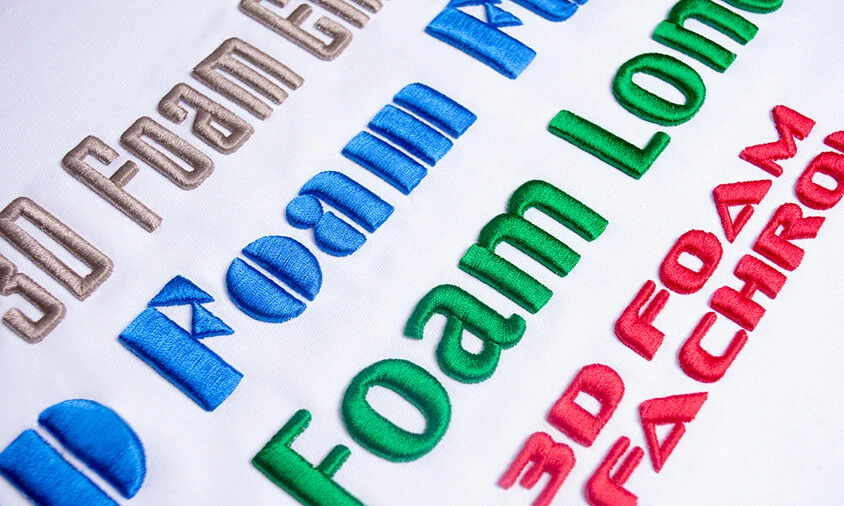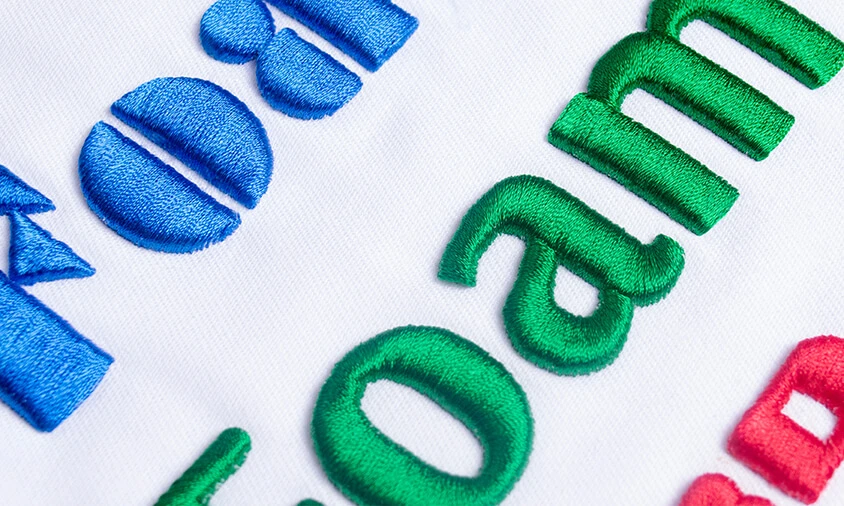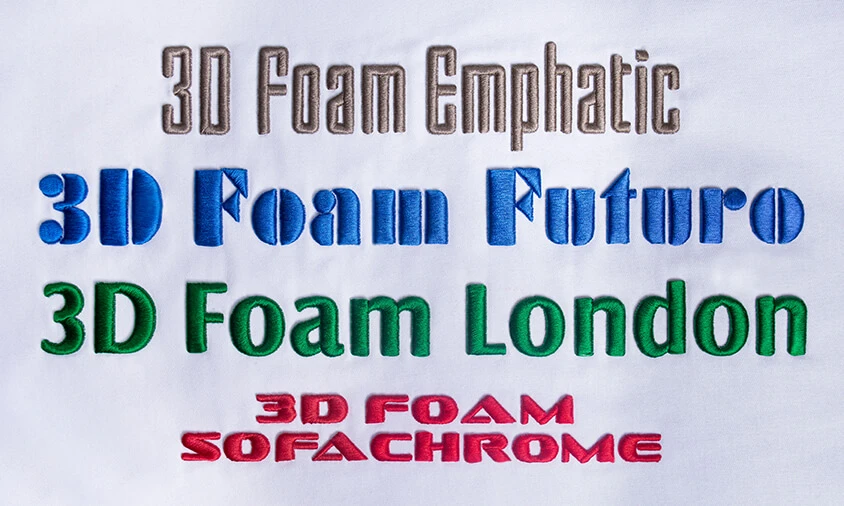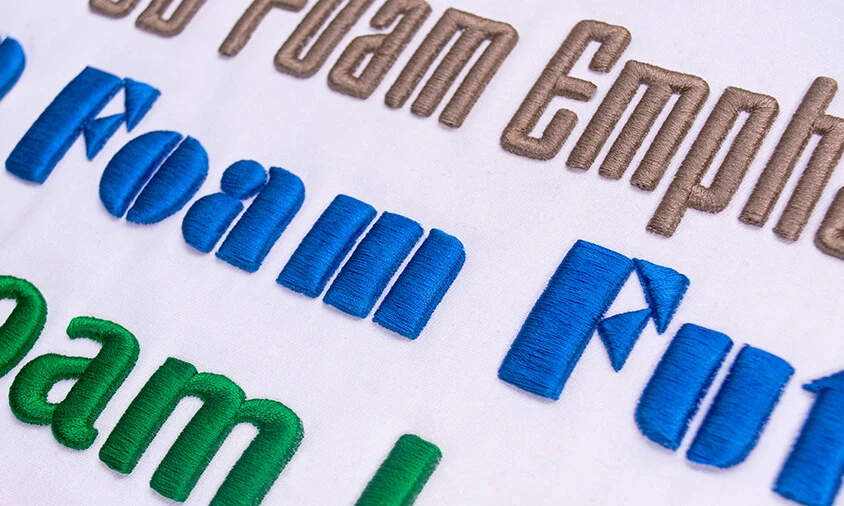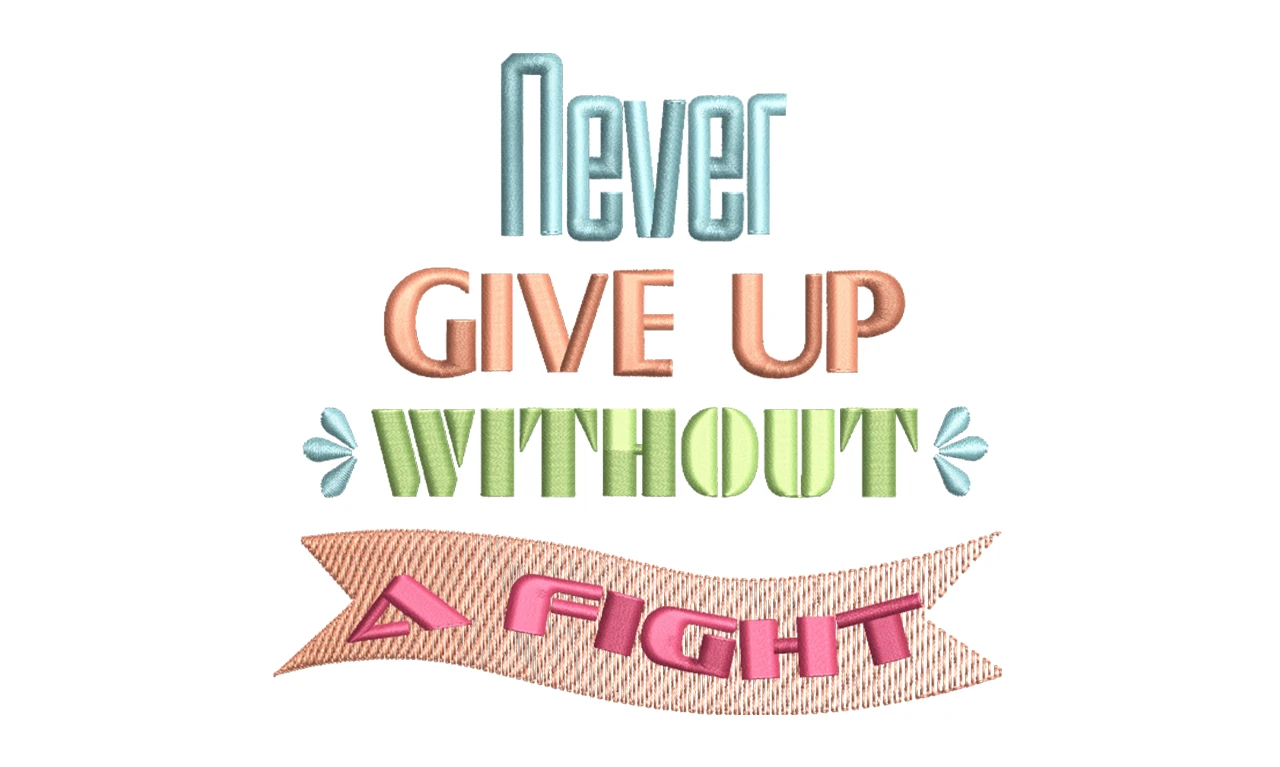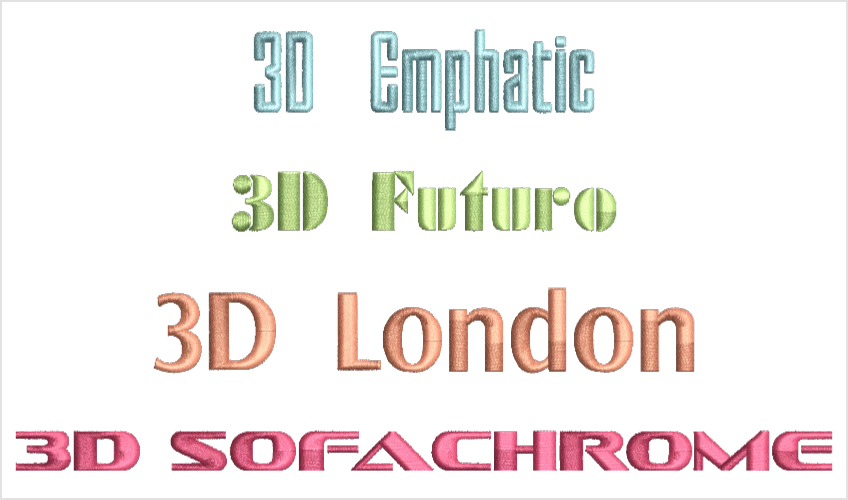
Font Pack #11 – 3D Puffy #2
3D Foam Emphatic
This font recalls the kind you’d use for handwritten cross-stitch puzzles! It makes nice bold block fonts when used with foam.
3D Foam Futuro
To get that stencil look, this is the font to use.
3D Foam London
Clean lines, yet with a sophisticated look, this is what you’ll get with the London font when combined with foam.
3D Foam Sofachrome
Want that ‘techno’ look? This font will give you just that when stitched out with foam.
Overview
The 3D Puffy #2 font collection provides four new fonts for use with foam. You’ll enjoy using these on hats, wall art, and other projects that needs that 3D look.